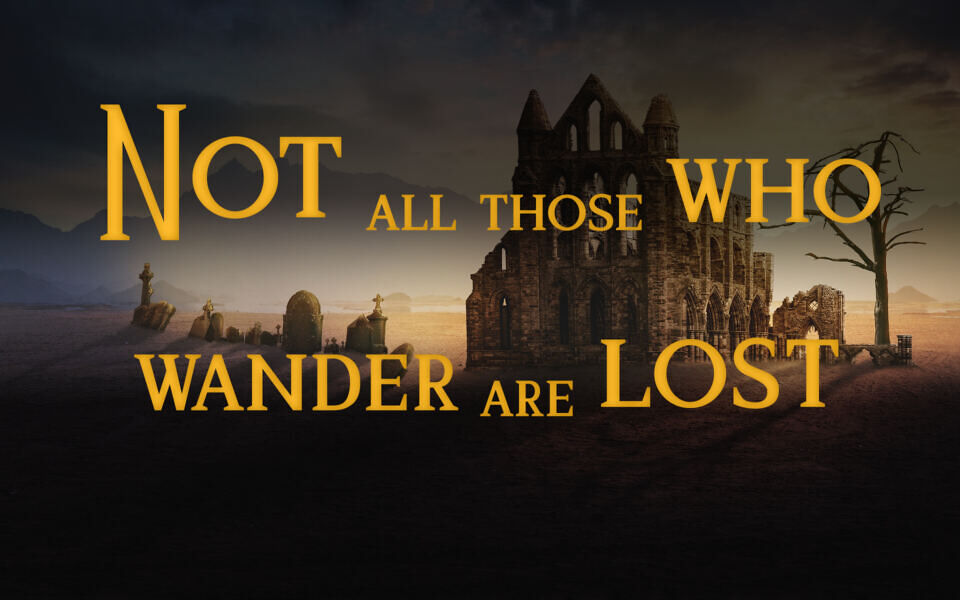
Open Ring Font
The Open Ring font is an elegant serif typeface with a strong medieval and fantasy-inspired character. Its letters feature slightly eroded and worn edges, giving it an authentic, aged appearance reminiscent of ancient manuscripts or text from epic tales.
The overall style is classic and majestic, making it perfect for projects that require a touch of historical or fantastical flair. The name and aesthetic are clearly influenced by epic fantasy stories, providing a sense of adventure and classic literature.